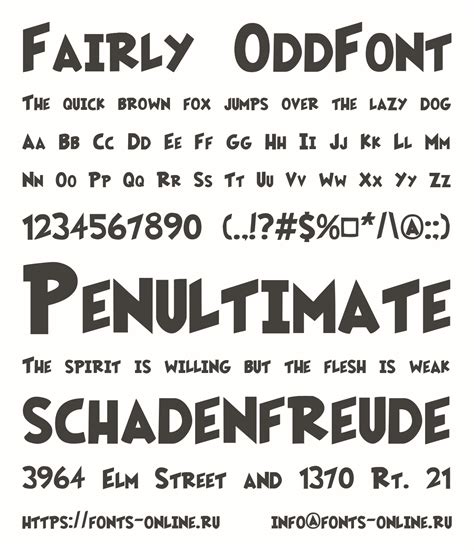
Fairly Odd Font. Votes, rated based on results identification. A work by a fan.
Votes, rated based on results identification. Web a font made based on a font used on the latest season title cards of the cartoon fairly oddparents. A work by a fan.
Votes, rated based on results identification. Web a font made based on a font used on the latest season title cards of the cartoon fairly oddparents. A work by a fan. Votes, rated based on results identification.